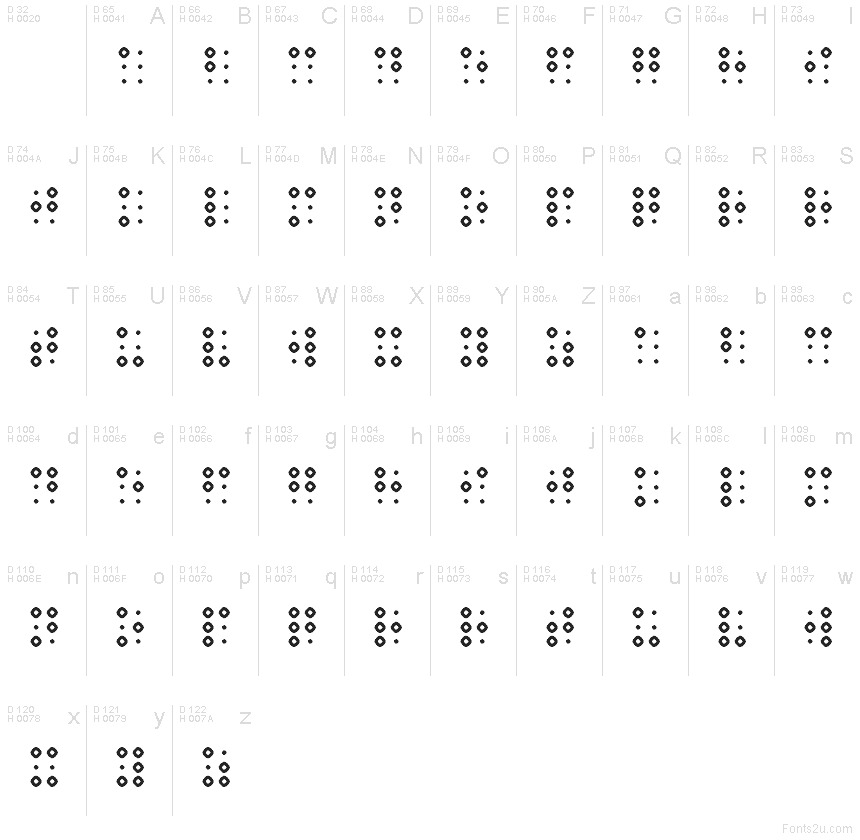
Braillenum Extravagant Regular
Braillenum Extravagant font, designed by Vladimir Nikolic, is a standout display typeface with captivating geometric beauty. The free techno display font is fairly regular and uniform in height and alignment with dots of differing diameters in each letter. Characters are aligned upright and completely detached. Ascenders and descenders slightly protrude from the middle line.
Single-use projects that drive attention; poster designs, abstract advertisements, publication covers (magazines), book covers (science fiction novels), logo ideas for futuristic brands, singing posters. Use within music-related contexts such as album covers or band visual identities for musical artists who seek to persuade their audience via extraordinary means.